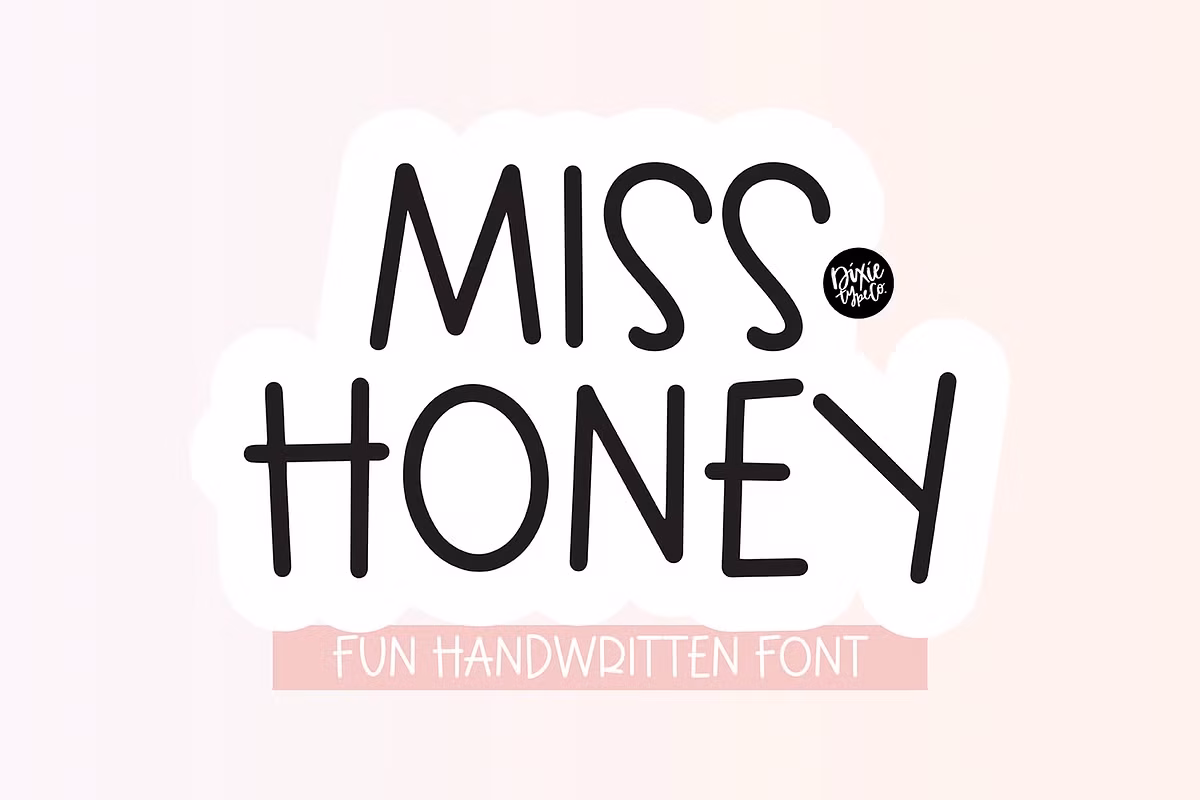
MISS HONEY Kids Handwriting Font Free Download is a sweet and playful typeface that captures the joyful spirit of childhood. Inspired by real kids’ handwriting, this font brings a friendly, approachable vibe to any design. Perfect for educational materials, children’s books, birthday invitations, toy packaging, and classroom posters, MISS HONEY makes every word feel warm and personal. Its bubbly letters and cheerful flow make reading fun and engaging—especially for young audiences. You can try MISS HONEY Kids Handwriting Font Free Download for personal projects or to preview how it fits into your creative vision before purchasing a license. Whether you're a teacher, designer, or parent creating something special, this font adds a lighthearted charm that’s impossible to ignore. Let your designs radiate innocence and fun with a font that speaks the language of imagination!